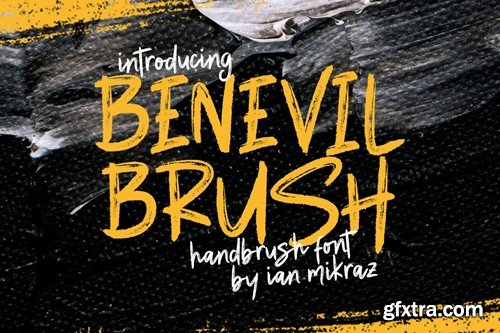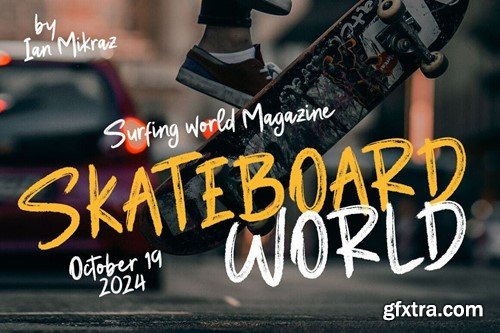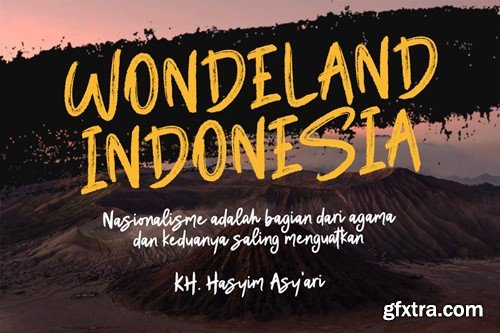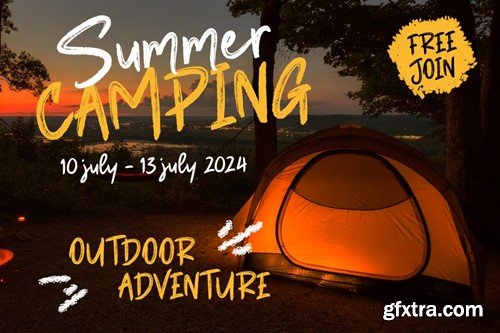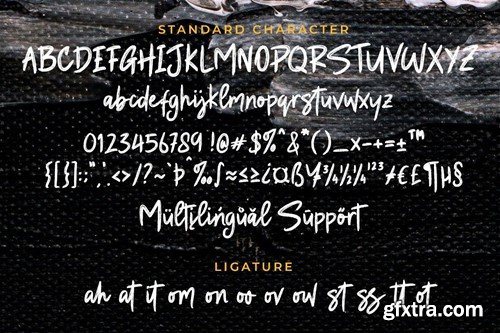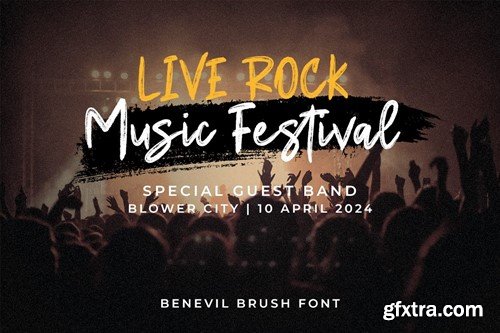
Benevil Brush - Handbrush Font
Benevil Brush - Handbrush Font Unleash your creativity with Benevil Brush, a vibrant and expressive handbrush font designed to add energy and personality to your projects. Whether you're designing posters, invitations, or branding materials, Benevil Brush delivers a bold and dynamic aesthetic that commands attention. With its authentic hand-drawn feel and versatile character set, this font gives you the freedom to create stunning designs that stand out from the crowd. Elevate your typography game and make a lasting impression with Benevil Brush. Features: File Include: Thank you